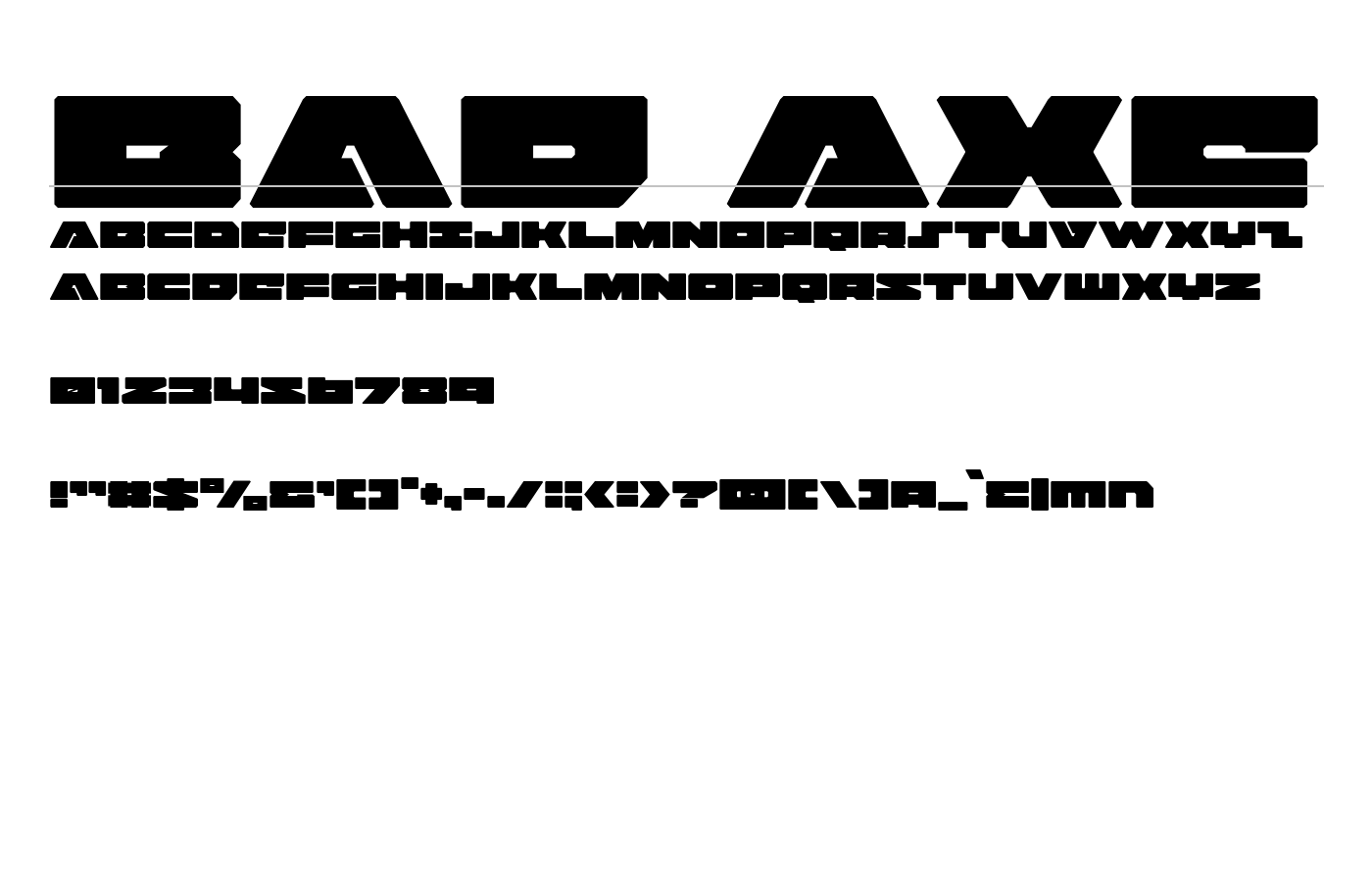
Bad Axe Font is a bold, heavy-weight sans serif with a striking, blocky structure and sharp angles that give it a strong, futuristic feel. Its tightly spaced, geometric letterforms and consistent thick strokes make it ideal for impactful headlines, logos, or branding that needs to convey power and modernity. This font works best in designs where a commanding, industrial presence is desired, such as tech-related projects, posters, or edgy product packaging.
Bad Axe Font
About Bad Axe Font